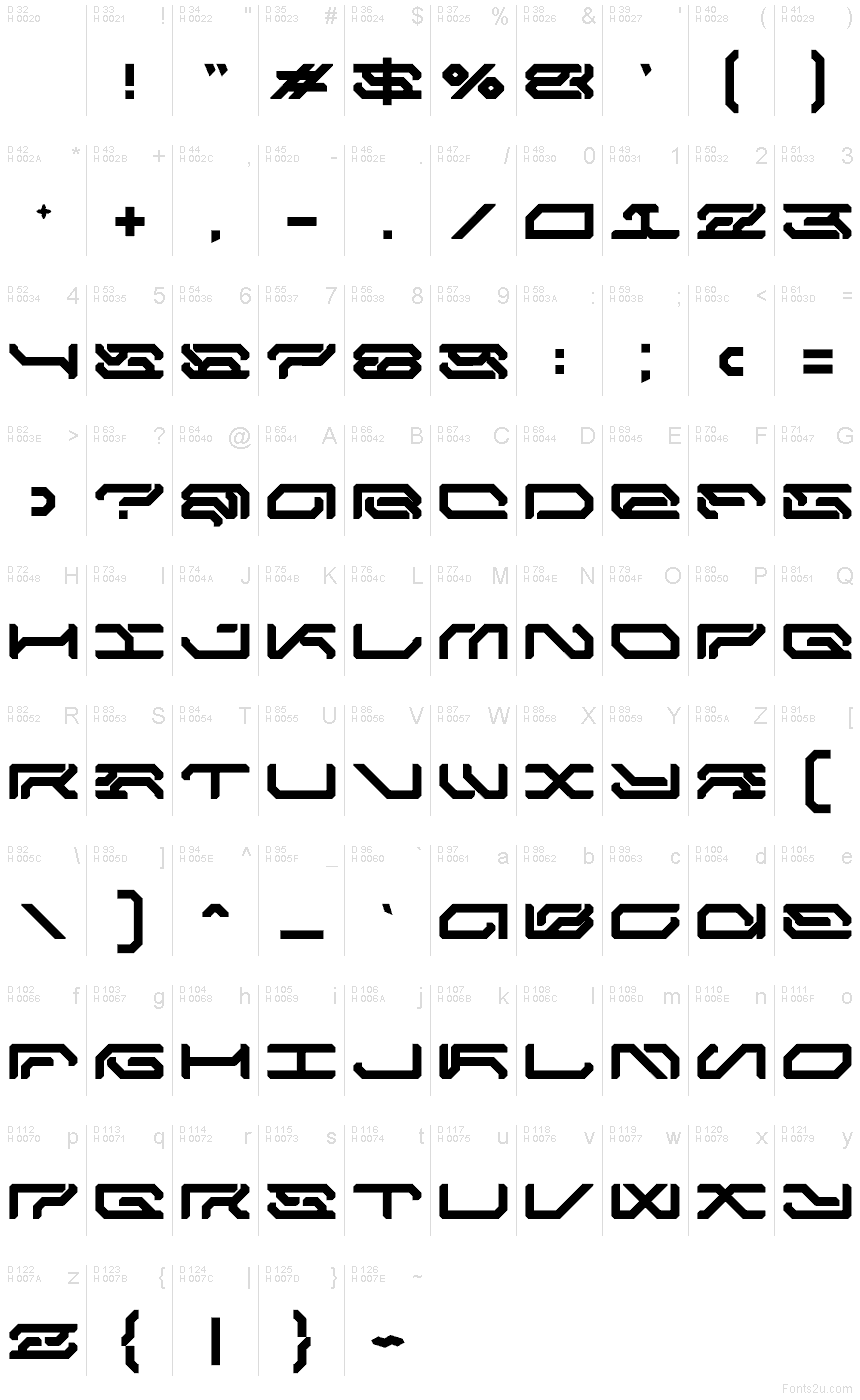
NCL Gesrob Demo
NCL Gesrob font from Enxyclo Studio is a futuristic display font with expanded forms for an open feel. The typeface has geometric elements, angular shapes, and decorative details for more dynamics. Letters are interconnected in natural ways to create visual simplicity and contemporary styles.